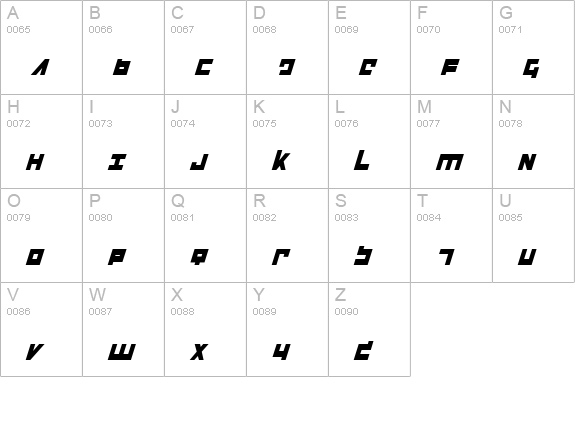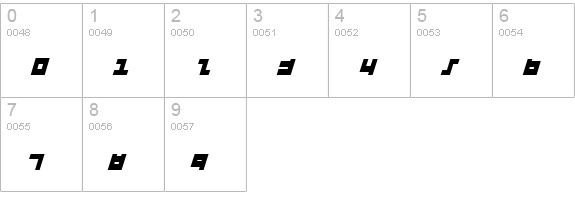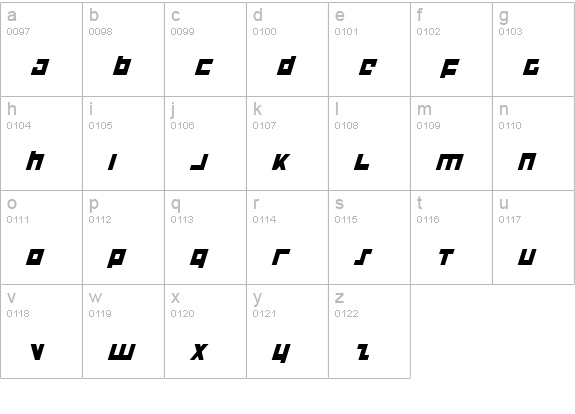
Flight Corps Condensed Italic is a distinctive, condensed-width, italic variant in the Flight typeface family \xE2\x80\x94 well suited to design and typography projects.
Flight Corps Condensed Italic font is a sleek and modern typeface that exudes a sense of speed and dynamism. Its italicized style adds a touch of elegance and sophistication, making it perfect for projects that require a stylish and contemporary look. The condensed design allows for efficient use of space, making it ideal for headlines, titles, and other display purposes. What sets Flight Corps Condensed Italic font apart is that it is available for free download at FontsMarket.com. This means that you can easily access this high-quality font without any cost, making it a great option for designers and creatives looking to enhance their projects without breaking the bank. Don't miss out on the opportunity to add this versatile and eye-catching font to your collection today!